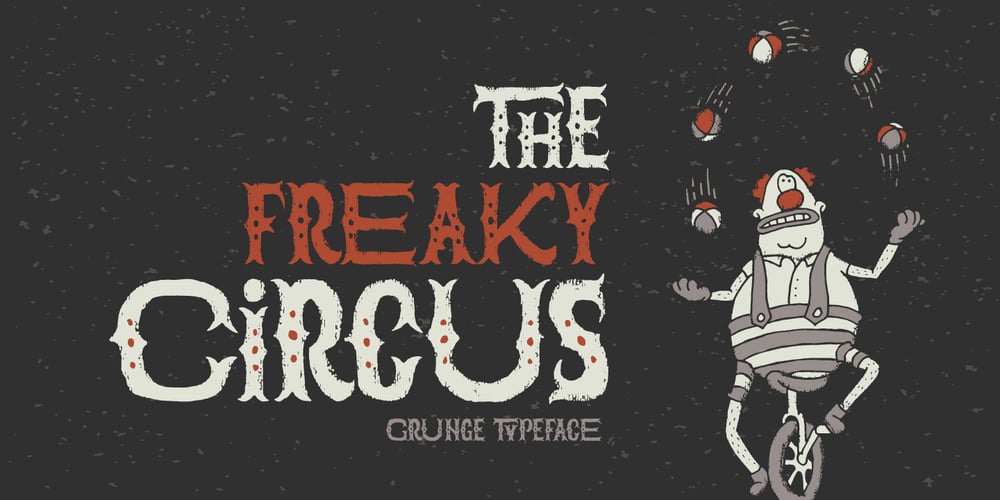
The Freaky Circus Font Family was designed by Gleb Guralnyk and published by Gleb Guralnyk. The Freaky Circus contains 1 styles and family package options. Introducing “The Freaky Circus” typeface with vector graphics bonus. This font has dirty handmade textured effect. The OpenType font includes 15 automatically replaceable ligatures. You can also variate between wide and narrow letters using capital characters.